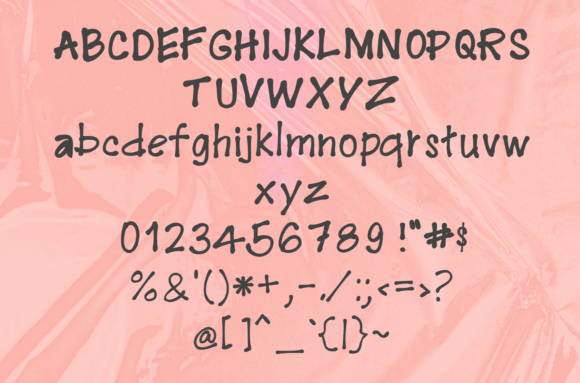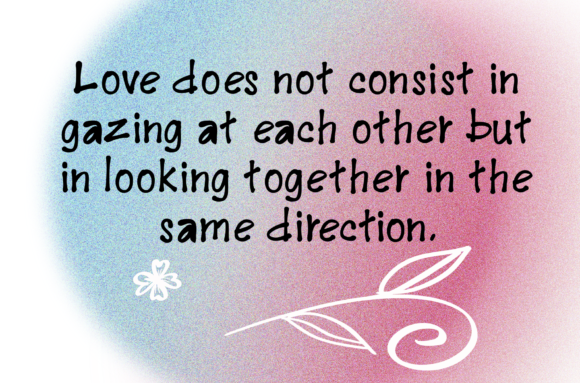
Memories Font
Memories is a sweet and friendly handwritten font. Its natural and unique style makes it incredibly fitting to a large pool of designs. The only limit is your imagination!